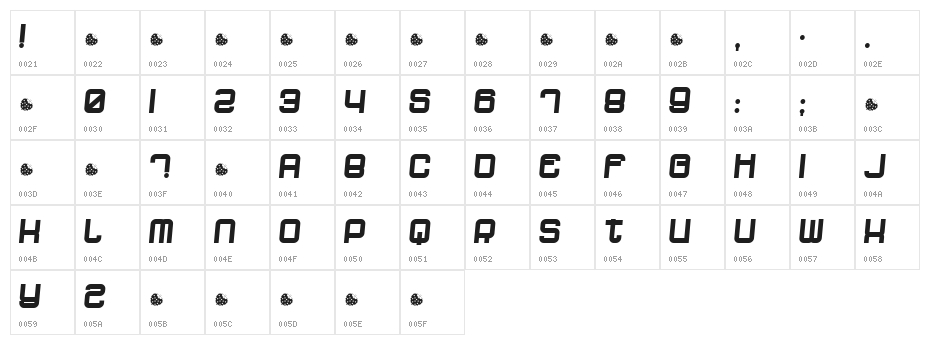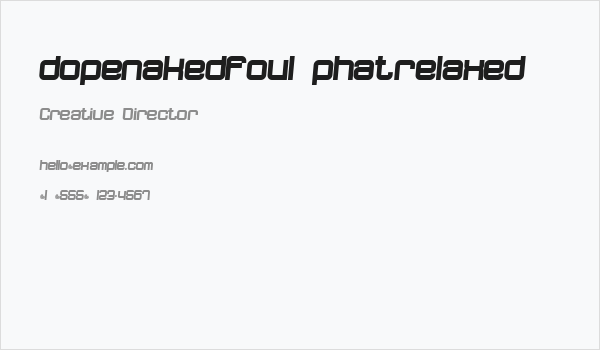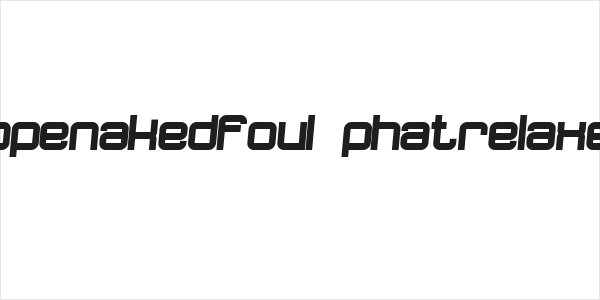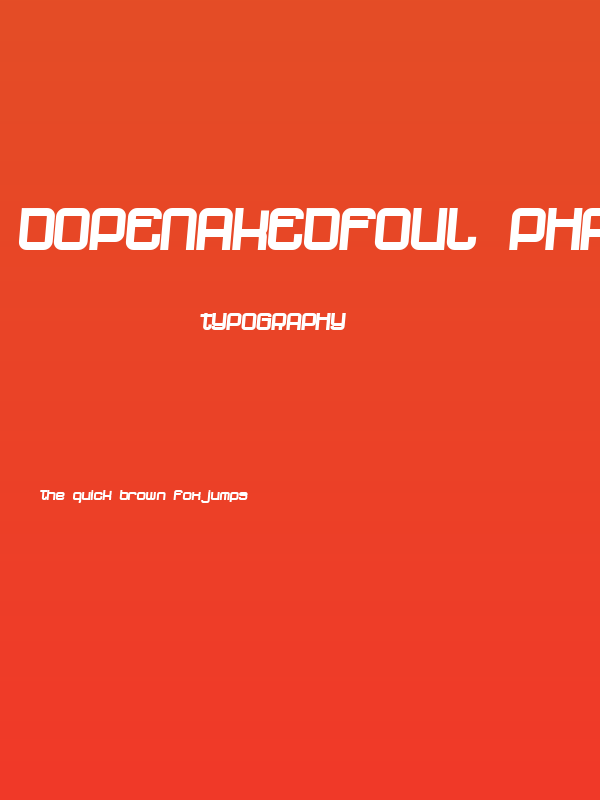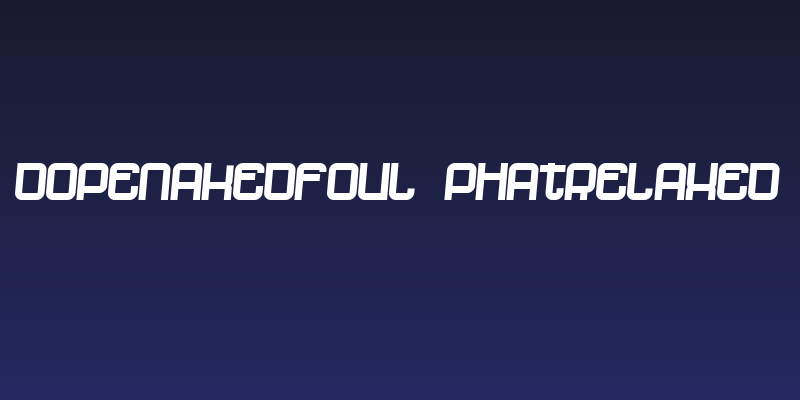
dopenakedfoul phatrelaxed Font
dopenakedfoul phatrelaxed Description
This font features a bold and modern design with a distinct geometric structure. The characters are slightly condensed, giving a compact and efficient appearance. The uppercase and lowercase letters maintain a consistent style, with rounded edges and uniform stroke widths, contributing to a cohesive look. The numerals are clear and easy to read, matching the overall aesthetic of the alphabet. Special characters are included, maintaining the same bold and modern style. The font's design is versatile, making it suitable for a variety of applications where a strong and contemporary look is desired.
Proposed ProjectsIdeal for branding, advertising, posters, and digital media where a modern and bold statement is needed.